A side conversation with Mamoru Kano of WOW
Born in 1972 in Miyagi Prefecture. Graduated from Tohoku University of Art and Design. As an art director and the director of WOW, created radical user interfaces and a wide variety of video work for media art, advertisements, and other media. He is an associate professor in the Creative Design department of the Tohoku University of Technology.
What will happen to typography in the digital world?
Type Project’s Isao Suzuki reunited with art director Mamoru Kano of WOW, who had worked together on a customer project previously, for an interview in Pen magazine (featured in the May 1, 2015 issue). There, they discussed UIs and typography, both of the “very near future” and “more distant future.” Below is part of their conversation that was not published in the article.
Typographic design that changes the user interface
Kano:The first time I worked with you was about eight years ago—for a mobile phone project, right? I wanted to use AXIS Font by myself, and I wanted many other people to use it as well. At the time, every mobile phone company used different fonts, so we proposed that information be provided not just through layout and graphics, but through using a beautiful, uniform typeface. Typeface makes a huge impact on the visuals and can completely change the impression given by the interface. I feel that it’s necessary for designers to keep in mind the idea that “characters have to be used properly within a screen.”
Suzuki:While dark black characters on paper have a strong presence, characters in a user interface are subtractive characters; rather, they have an impact that’s preferred for casual messages.
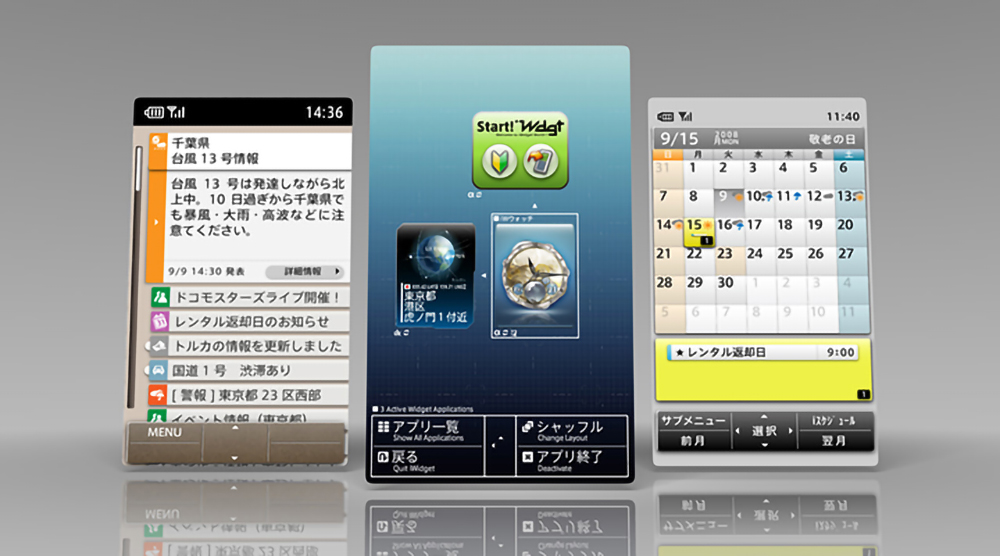
(design direction: takram design
engineering ) using AXIS Font.
Kano:I believe that AXIS Font is appealing as an on-screen font, not just in user interfaces. When asking staff why they use AXIS Font, you hear things like “it doesn’t have any thorny bits or hangups; the information just comes straight through.” The empty space—like a window, in terms of a building—is very pleasant.
Suzuki:I’m thinking about how typography will need to be to suit user interfaces five years from now. I’m not thinking in the digital sense—I’m thinking in our everyday lives now, and beyond, and how I can incorporate into our typefaces elements that provide a sense of pleasure. In particular, the idea that “Japanese isn’t cool, so we’ll just use the Latin alphabet” is extremely prevalent in user interfaces, isn’t it. I hope to do away with this sort of thinking. I want to have the Japanese language present in places where there should be Japanese, so what we can do to make Japanese cool is a very big theme for us.
Kano:I think contrast and horizontal text will be standards that must be considered in the future of the Mincho fonts. Right now, we’re in an age where typeface is elevating screen design. TP Mincho has this impact where it seems refreshing & stylish—there’s this newness to it that translates to beauty on a digital screen. When you’re designing content that communicates Japanese culture, the best things about Japan, the flavor of the Mincho fonts fits perfectly. It can send a chill down your spine. If we could use TP Mincho in UIs and image content where we’ve previously been compelled to use Gothic fonts, I’d be thrilled.
The very near future & the far distant future
Kano:For user interfaces encountered in everyday life, such as those of home electronics, more interfaces will likely be created with Japanese aesthetics. Novel typefaces like TP Mincho may be the impetus for the birth of new designs.
Suzuki:In your work, I can get a sense of your strong feelings toward Japan that are present in your universal portrayal of nature. With higher resolutions for digital devices, we are now able to provide a rich showcase of Japan’s customs, seasons, and sensations. If we present a message that extols the benefits of the Japanese language but use a typeface that doesn’t support that message, we can’t bring our words to life. So I think we’ve assumed a heavy responsibility in creating a typeface that can be used as this tool.
Kano:Up to this point, video has been a way to record and play back creations. Looking at it now, the technology for creating video is changing. With computer graphics, too, we’re entering this revolutionary age where you can create video in real time. We’re placing text in environments where various elements such as the background and size are changing, and designers have to design their layouts with that in mind. At the same time, being able to choose fonts from Gothic to Mincho, and being able to select contrast and character width—from a certain perspective, the vast selection of fonts available is an extreme advantage—it will become indispensable in visual design in the future, I think. The definition of media art as “a form of expression using technology” is connected with previous art history, and it’s become a platform for creating some truly beautiful pieces and works that touch the human heartstrings—that’s obvious. At a time like this, how the state of typography will change in the future is very important, and artistic expression itself is probably also in transition. Could it not be said, then, that what we fundamentally want from text is also changing?
Suzuki:The point about “touching the heartstrings” is important to me as well; for example, communicating more through whispers rather than shouts, right? I have a feeling that in the near future, there will probably be a demand for those sorts of typefaces in the digital space as well.
Kano:I also use AXIS Font as a typeface in my work, as well as a typeface for materials and presentations, and as a team default. It increases the motivation of staff creating the materials, and it’s important to share aesthetics by constantly using things that are beautiful. Also, it’s a “winning font,” and it gets our messages across cleanly and smoothly, so it helps boost the number of orders we get. (laughs)
Left: “Light Rain”; right: “Factory and Amusement Park”
Pen magazine dialogue between Isao Suzuki and Mamoru Kano
What is the goal of “typeface” in a world of video?
“Digital device interfaces have become a constant presence throughout our daily lives. The text on those screens shouldn’t make a strong impact or draw attention to itself; it should be attuned to its environment and slip naturally into our everyday lives.” (Kano)